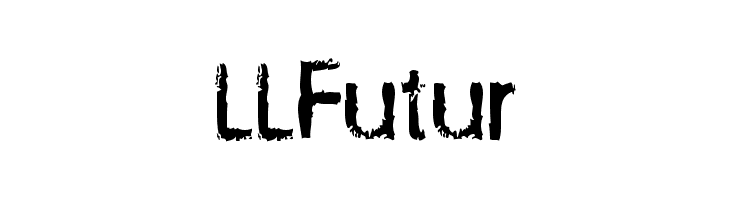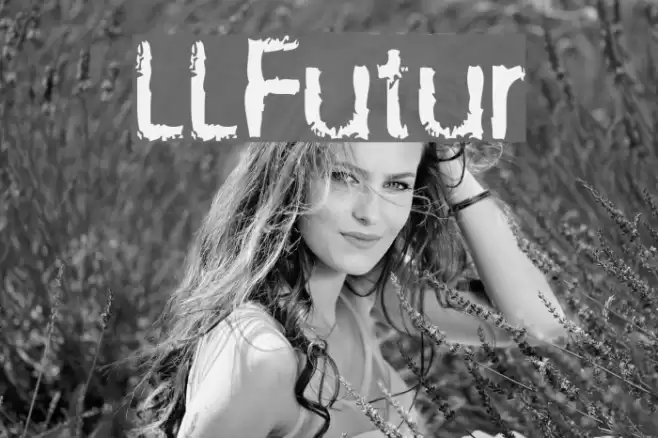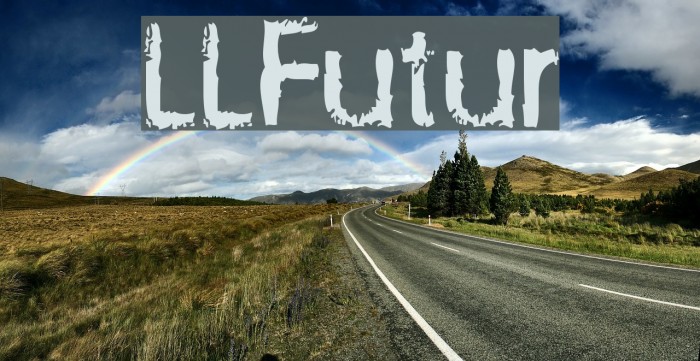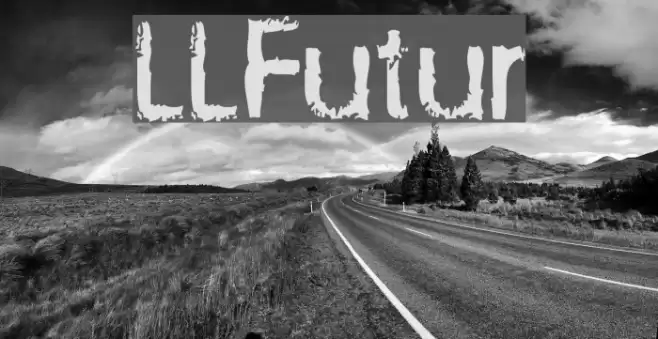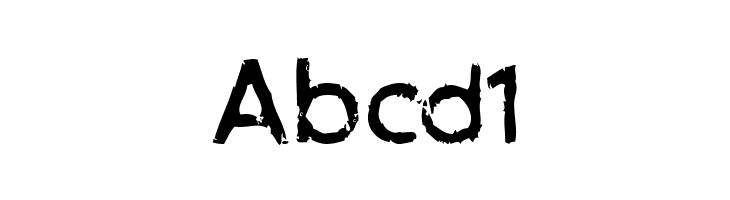
LLFutur Font
LLFutur Description
This font features a distressed, grunge aesthetic with rough, uneven edges that give it a raw and edgy appearance. The characters are bold and impactful, with a hand-drawn feel that adds a sense of authenticity and character. The uppercase and lowercase letters maintain a consistent style, while the numbers and special characters complement the overall design. This font is ideal for projects that require a bold statement or a touch of rebelliousness, such as music album covers, posters, or urban-themed designs.
| Overall Style | Grunge, Edgy |
| Use Case | Headlines, Posters, Album Covers |
| Proposed Projects | Perfect for music album covers, posters, urban-themed designs, and any project needing a bold, edgy statement. |